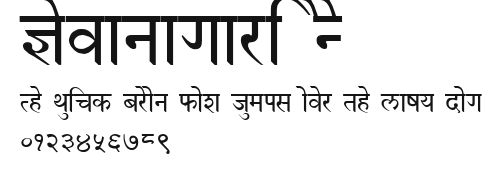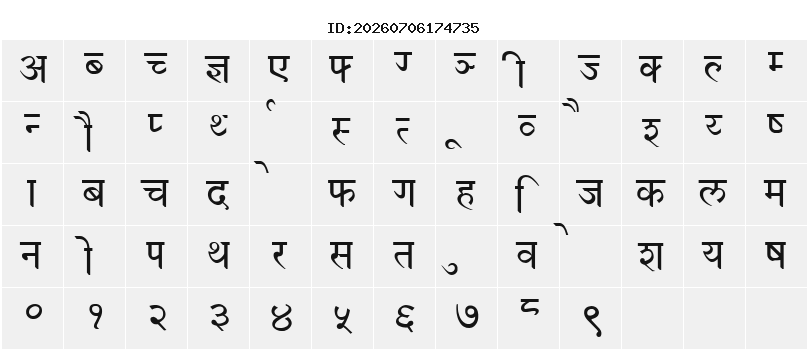
Devanagari New Preview
• Font Name: Devanagari New
• Font ID: FontMonger:Devanagari Normal
• Full Font Name: Devanagari New Normal
• PostScript Name: DevanagariNormal
• Character Count: 221
About Devanagari New.ttf
Devanagari New.ttf is a modern, elegant sans-serif font designed for ultimate readability and visual harmony. Perfect for branding, headlines, web design, and print materials.